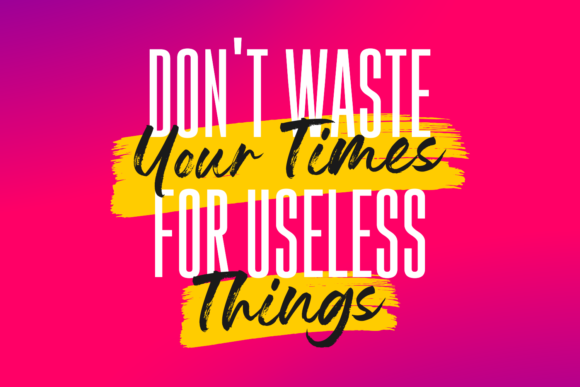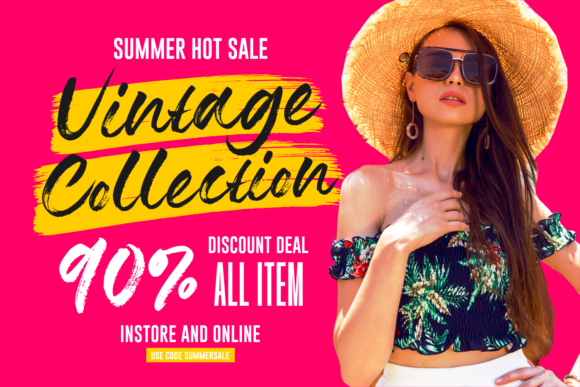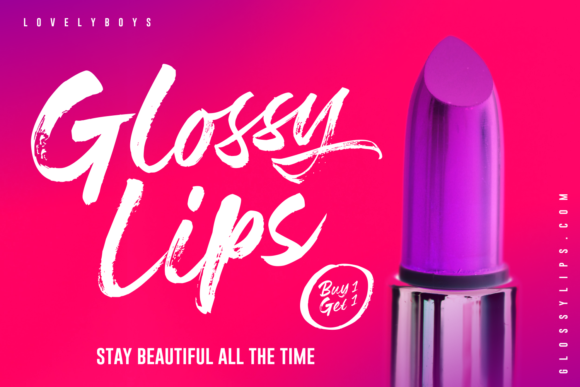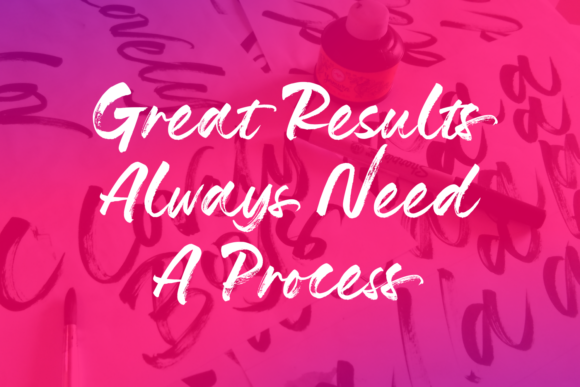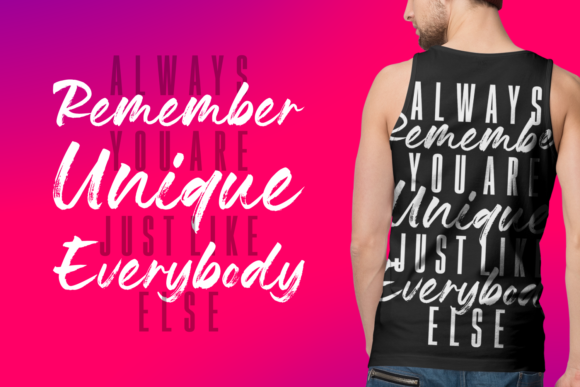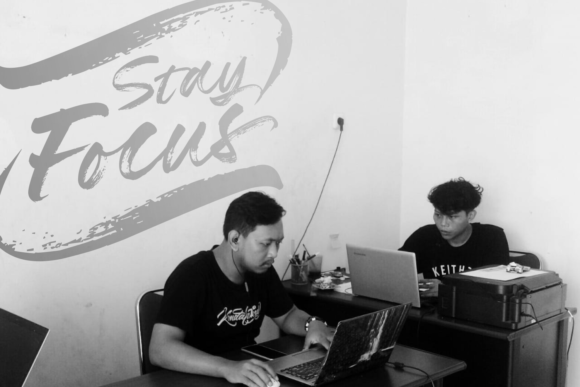
Introduction to Lovely Boys Font
The Lovely Boys is a natural script font.
It has a rough look which will stand out in any design .
Key Features of Lovely Boys Font
Why Choose Lovely Boys Font?
Lovely Boys Font offers exceptional quality and versatility, making it a valuable addition to your design toolkit. Whether you’re creating for personal projects or commercial use, Lovely Boys Font delivers professional results.